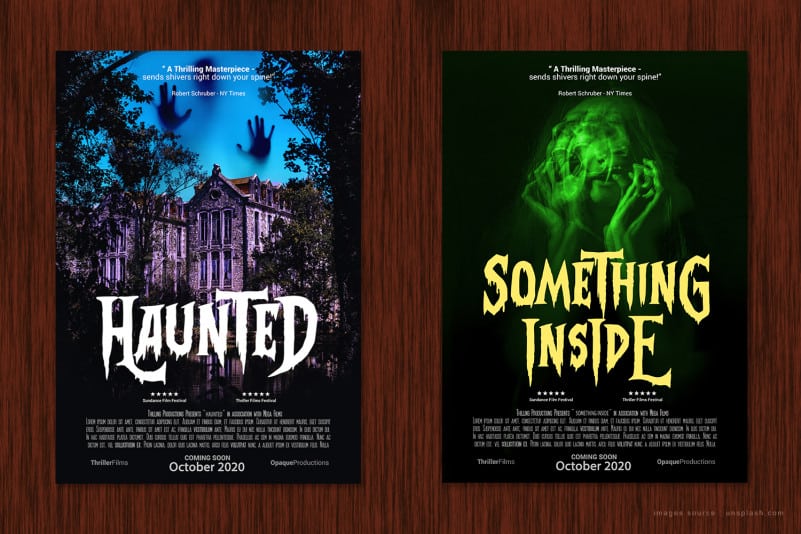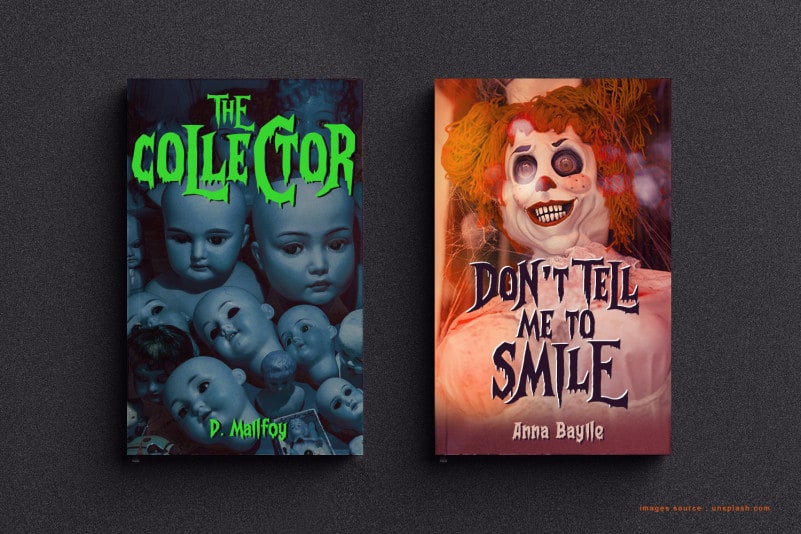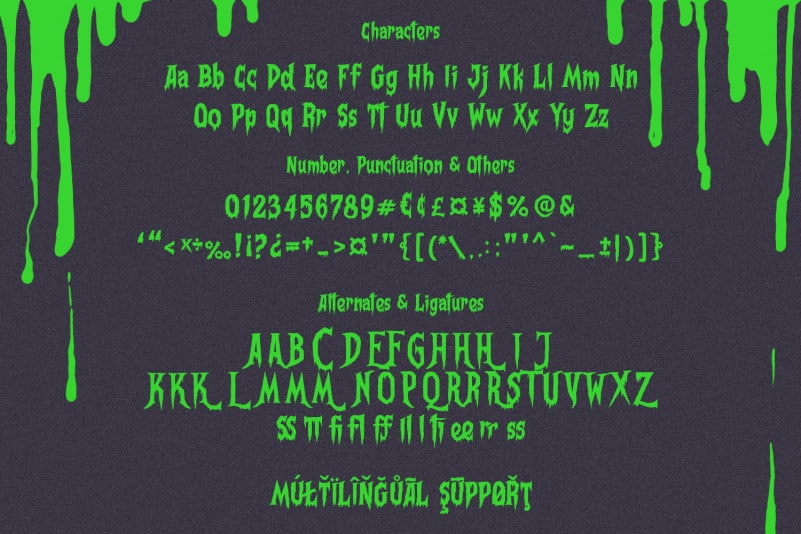
Frightmare – Display font
Frightmare Display font inspired by old great horror movies all the time! Bringing you back over the decades to dive in horrific vibes!
Frightmare Display font has given PUA Unicode (specially coded fonts). so that all the alternate characters can easily be accessed in full by a craftsman or designer.